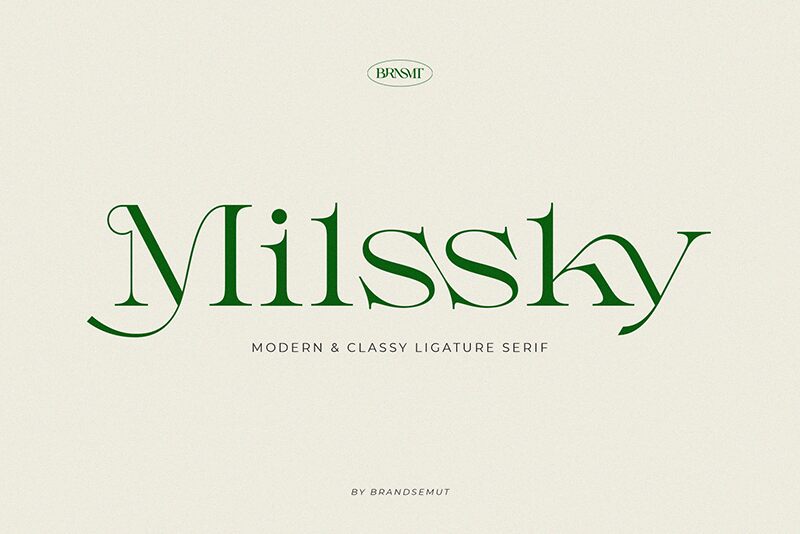
Milssky, the modern and classy ligature serif font created by BrandSemut, is the perfect choice for projects that require a touch of elegance and sophistication. With its semi-light weight and expanded width, Milssky strikes a balance between legibility and style. Its unique ligatures create a seamless flow of letters, making it ideal for branding materials such as logos, business cards, and signage. This versatile typeface also lends itself to editorial projects like magazines or websites that call for a refined yet contemporary feel. Let Milssky elevate your design to new heights of beauty and functionality.